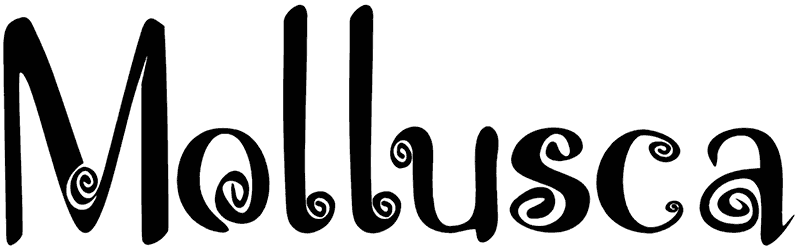
Mollusca Font
Designed byNur Khanifa Subkhi
Say hello to Mollusca, a cute curly font that comes with spiral tails or dots. While it conveys a sense of happiness and excitement to your design, this whimsical font can bring a specific fantasy and mysterious touch. It supports a whole set of characters and will be ideal for movie/animation posters, book covers, product packaging, mug prints, and store signs.